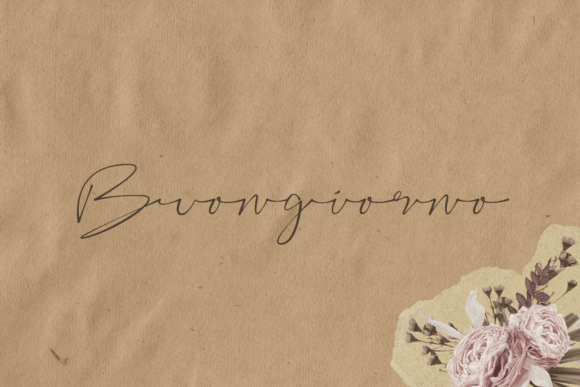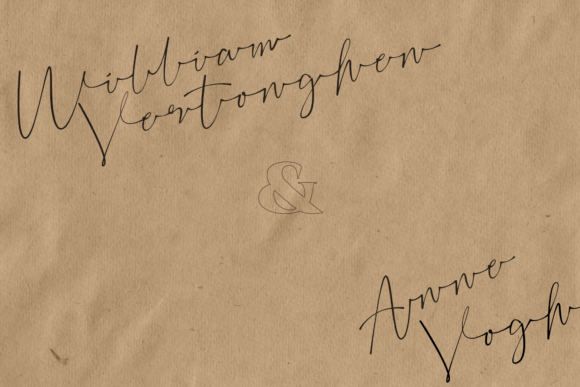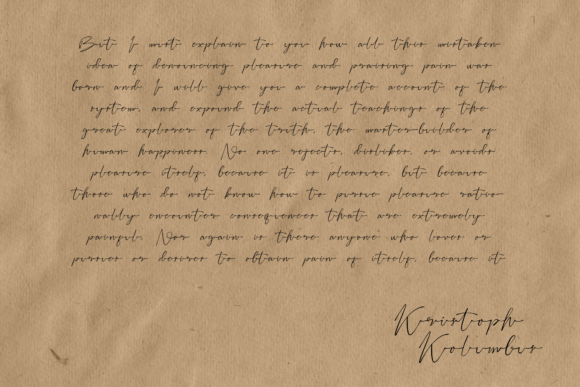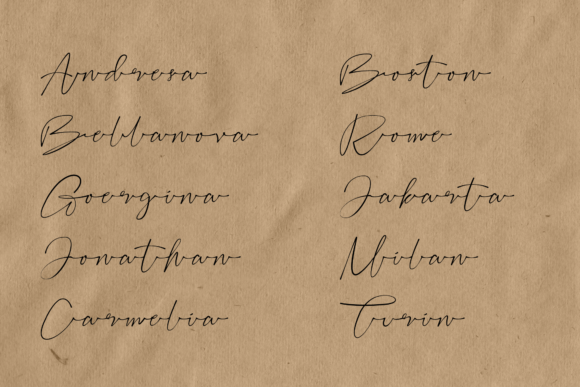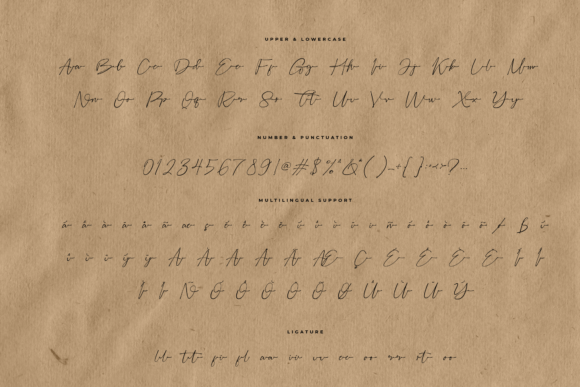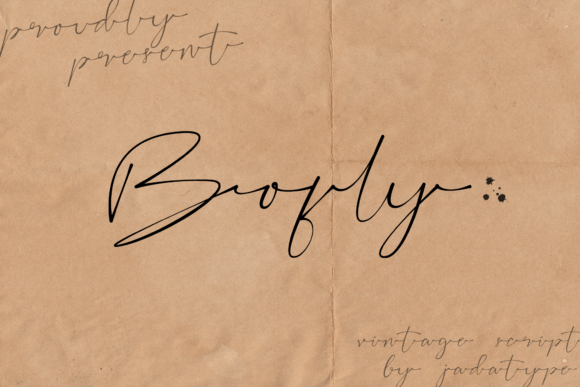
Bofly Font: Add a Touch of Romance to Your Designs
In the world of typography, fonts play a crucial role in conveying emotions and setting the tone for a project. For designers and crafters looking to add a romantic feel to their work, the Bofly font is an excellent choice. This enchanting handwritten font is versatile, elegant, and perfect for a wide range of applications.
What is Bofly Font?
Bofly is a beautiful script font that boasts a unique and captivating style. Its elegant strokes and curves make it an ideal choice for designs that require a personal touch. Whether you’re working on a greeting card, invitation, or headline, Bofly font is guaranteed to add a romantic feel to your project.
Characteristics of Bofly Font
Bofly font has several characteristics that make it stand out from other script fonts. Some of its notable features include:
- Handwritten style: Bofly font has a natural, handwritten look that gives it a personal and intimate feel.
- Elegant strokes: The font features smooth, flowing strokes that add to its elegance and sophistication.
- Versatile: Bofly font can be used for a wide range of applications, from greeting cards to headlines, and even digital media.
- Romantic feel: The font’s unique style and charm make it perfect for designs that require a romantic touch.
Uses of Bofly Font
Bofly font is incredibly versatile, making it suitable for various design projects. Some of the most popular uses of Bofly font include:
- Greeting cards: Add a personal touch to your greeting cards with Bofly font, perfect for special occasions like weddings, anniversaries, and birthdays.
- Invitations: Make your invitations stand out with Bofly font, ideal for formal and informal events.
- Headlines: Use Bofly font to add a touch of elegance to your headlines, perfect for blogs, magazines, and newspapers.
- Digital media: Bofly font can also be used for digital media, such as social media graphics, email signatures, and website headers.
Benefits of Using Bofly Font
Using Bofly font in your designs offers several benefits, including:
- Unique style: Bofly font’s unique style sets it apart from other fonts, making your designs stand out.
- Elegance: The font’s elegant strokes and curves add a touch of sophistication to your designs.
- Romantic feel: Bofly font’s romantic feel makes it perfect for designs that require a personal touch.
- Versatility: The font’s versatility makes it suitable for a wide range of applications.
Tips for Using Bofly Font
To get the most out of Bofly font, here are some tips to keep in mind:
- Use it sparingly: Bofly font is best used sparingly, as it can be overwhelming if overused.
- Pair it with other fonts: Pair Bofly font with other fonts to create a unique and visually appealing design.
- Adjust the size: Adjust the font size to suit your design, using larger sizes for headlines and smaller sizes for body text.
| Font Name | Bofly Font |
| Author | jadatype |
In conclusion, Bofly font is an enchanting handwritten font that adds a romantic feel to any design project. Its elegant strokes, versatility, and unique style make it perfect for a wide range of applications, from greeting cards to headlines. By following the tips outlined above, designers and crafters can make the most out of Bofly font and create stunning designs that leave a lasting impression.